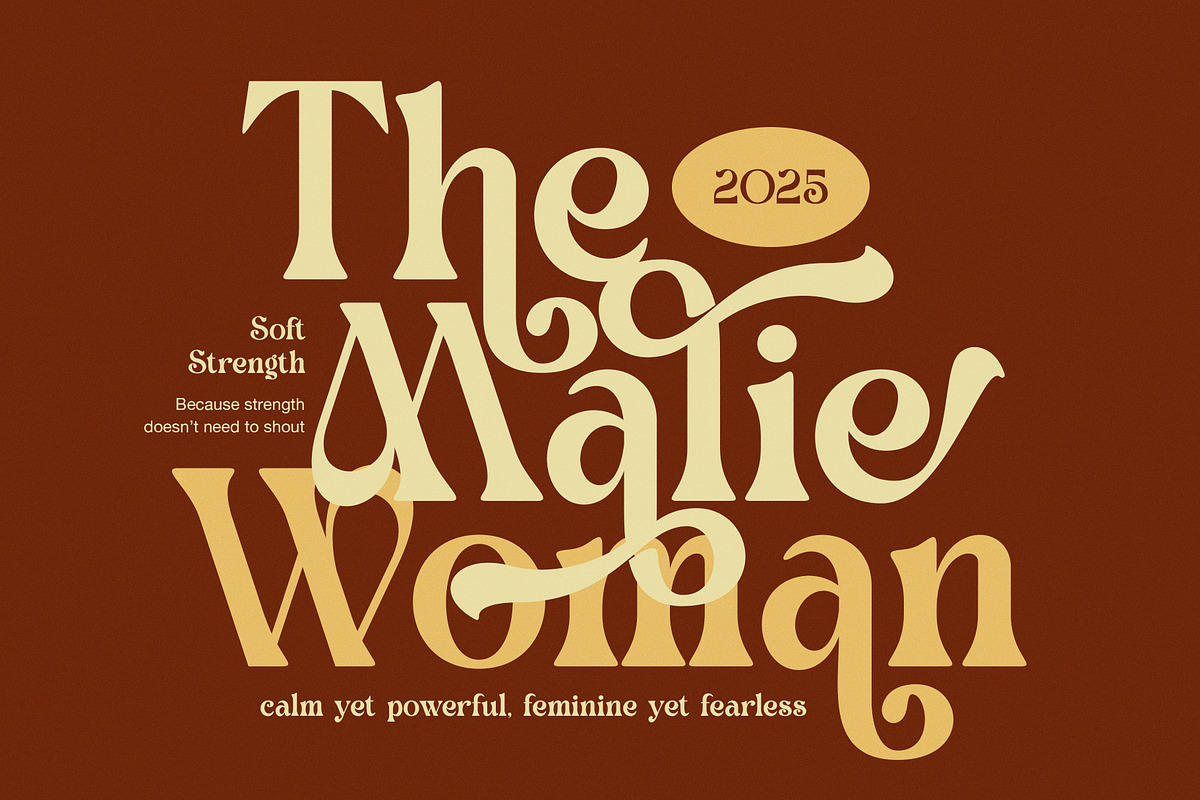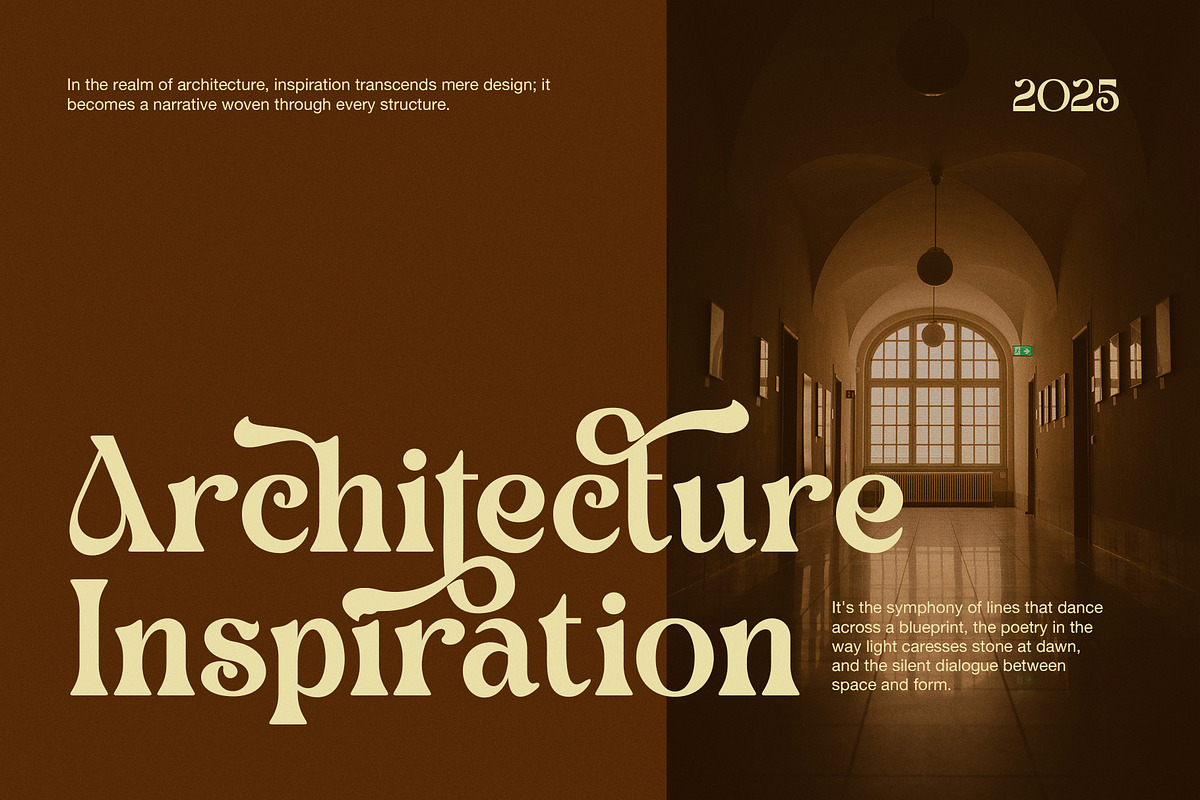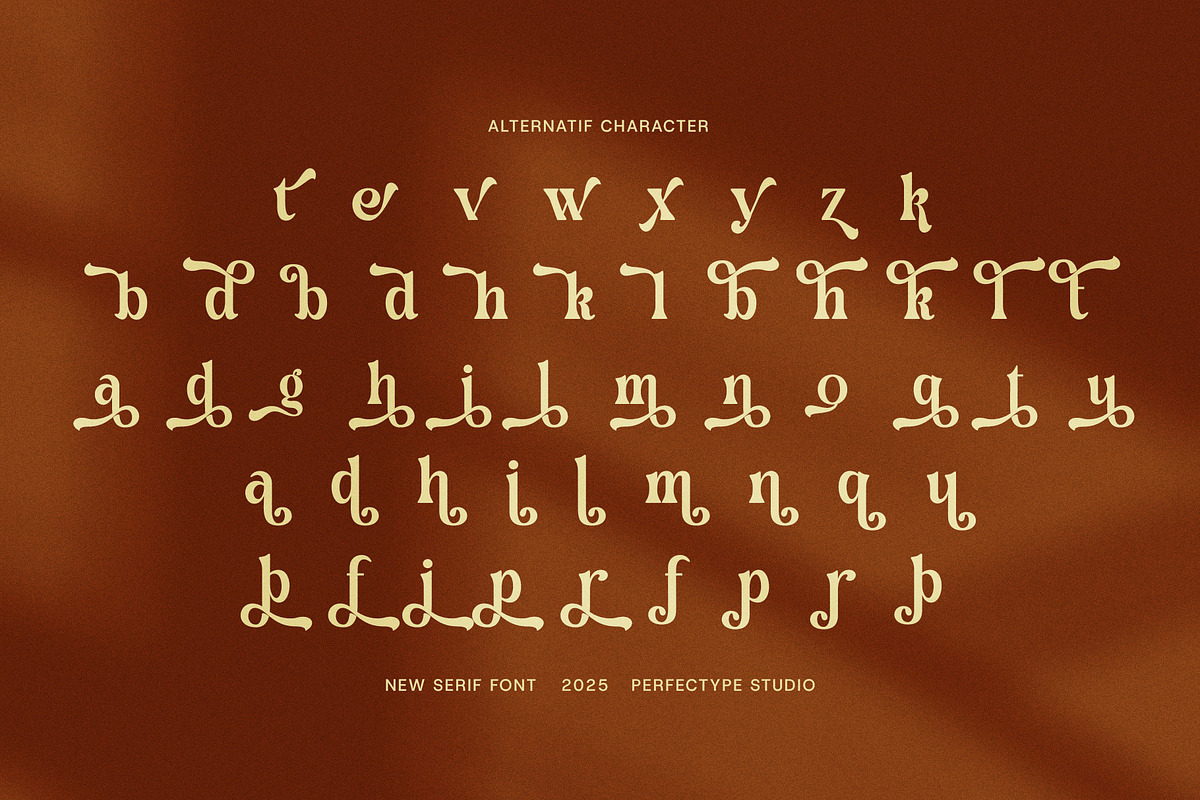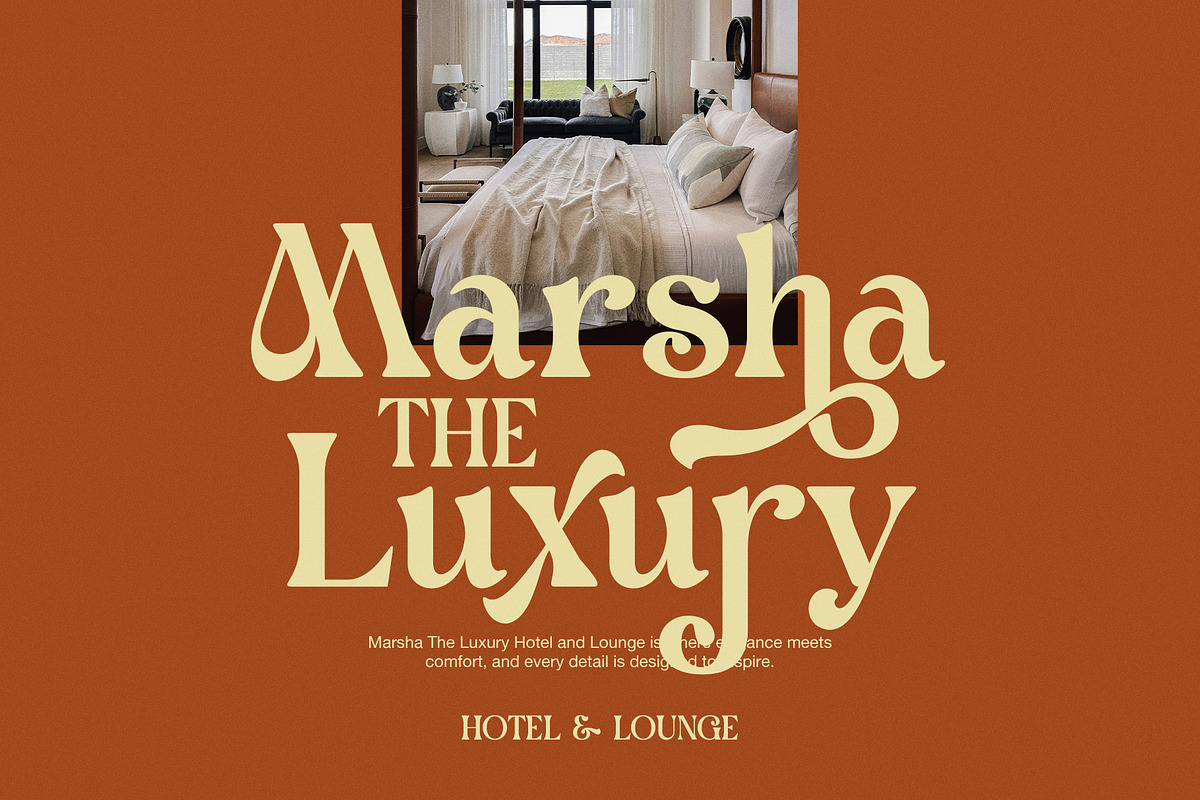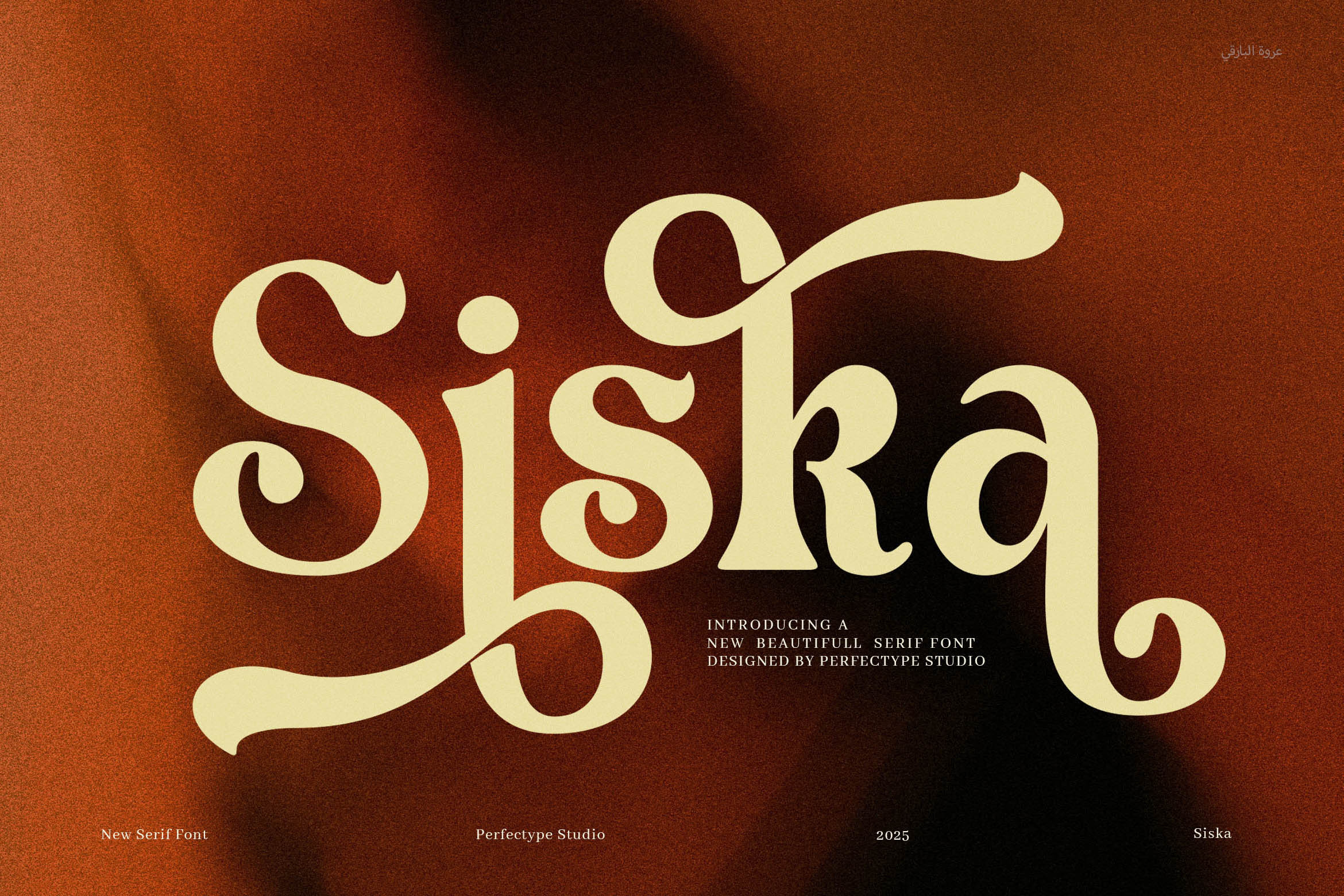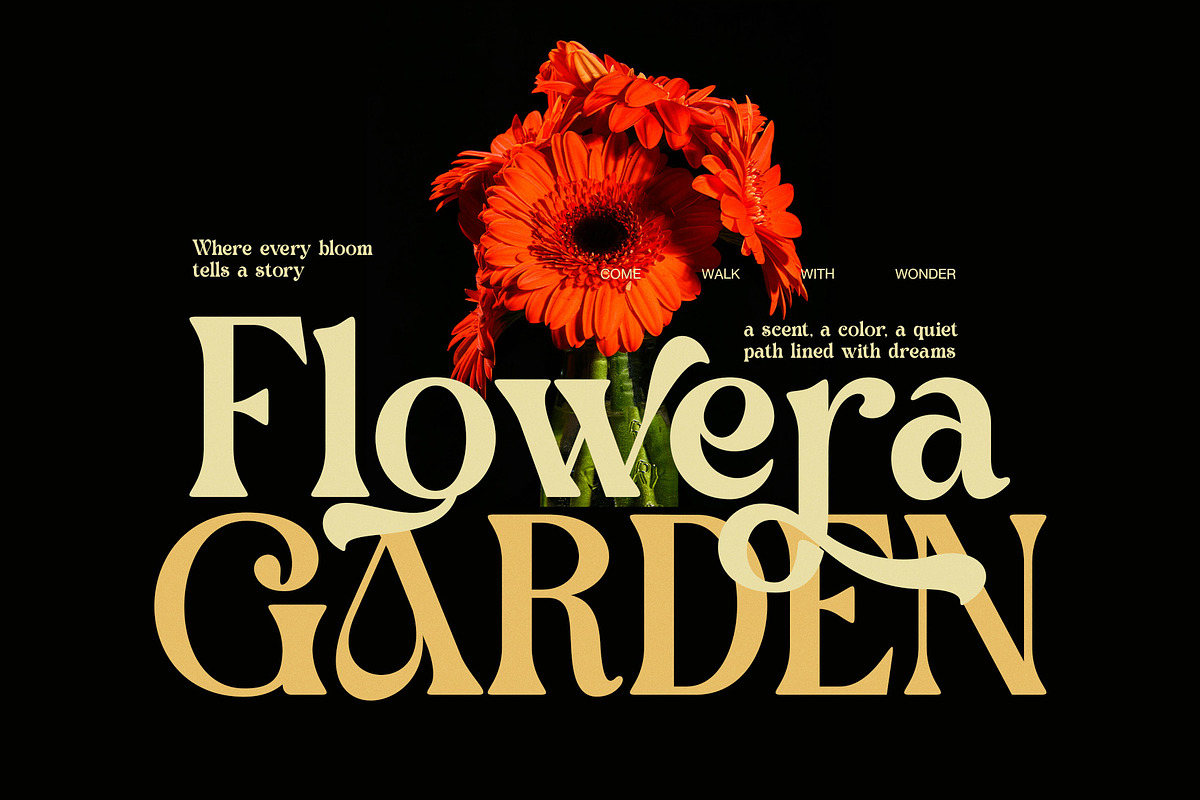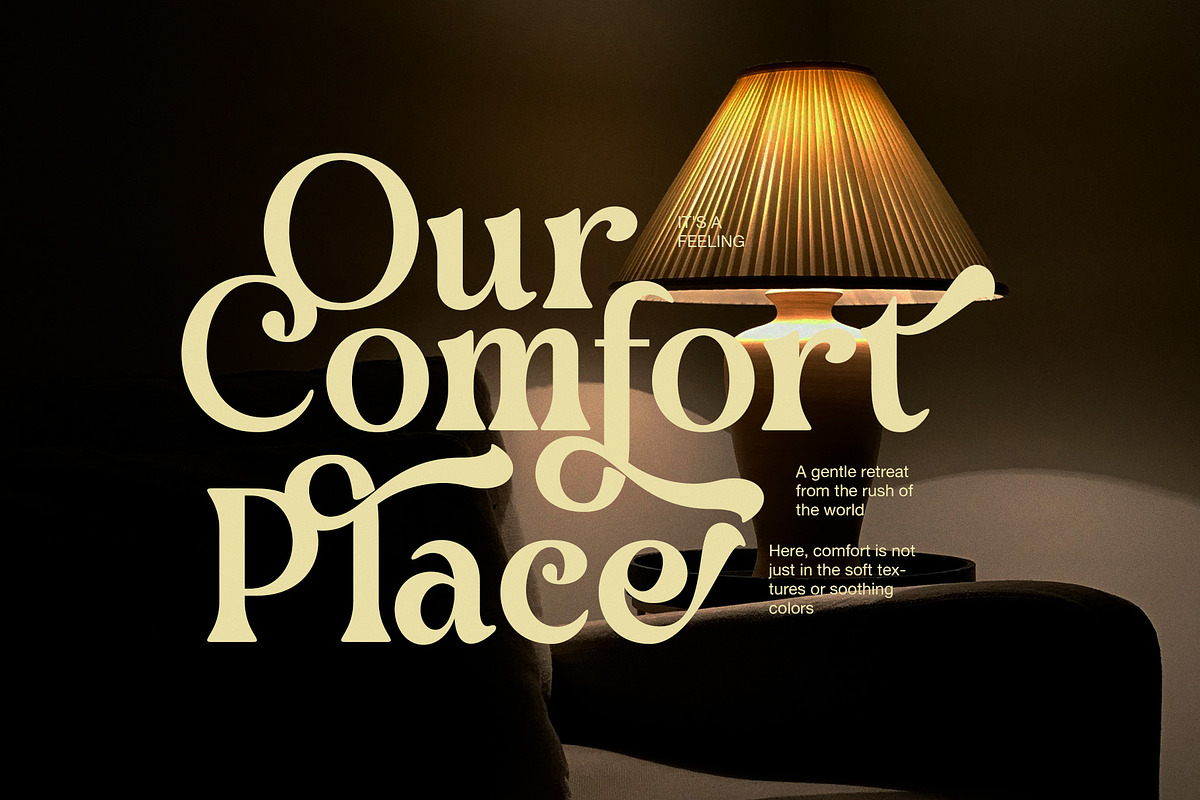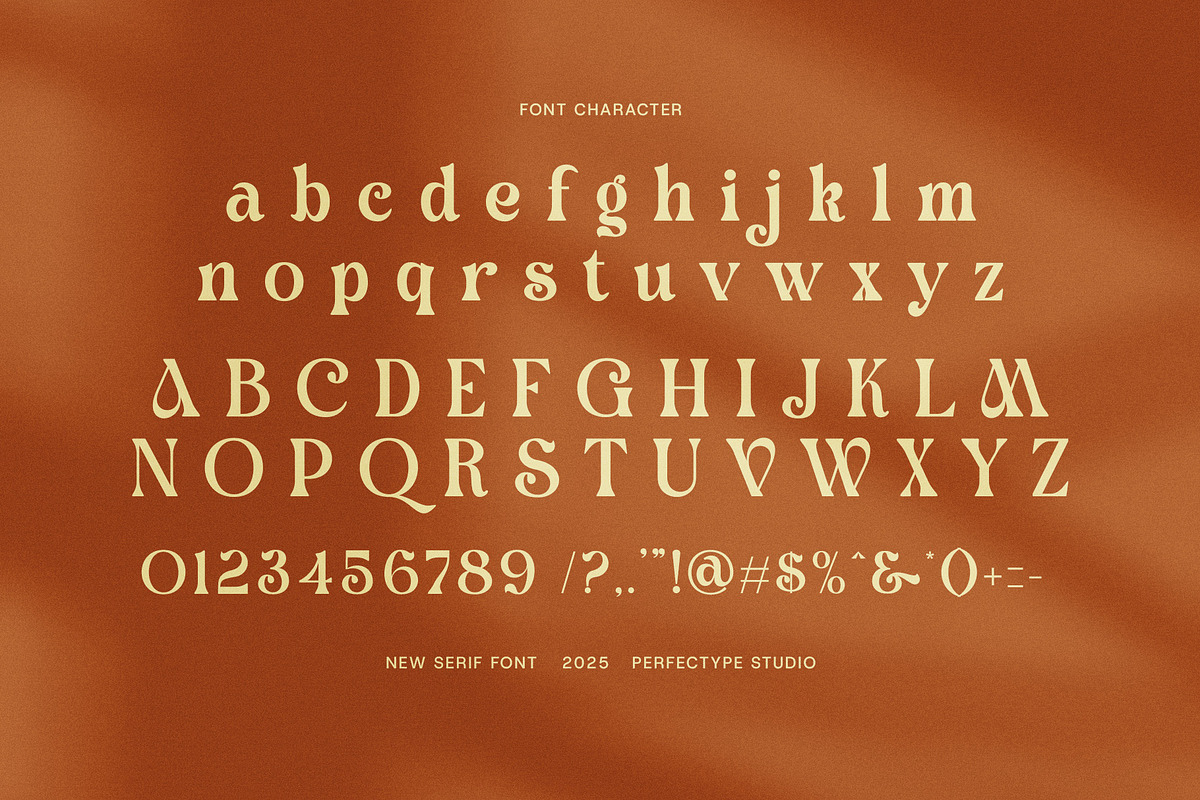
Siska Elegant Serif Font
Siska is a beautiful, elegant script font designed to bring a smooth, natural flow to your creative projects. Whether you are working on invitations, logos, branding, or social media graphics, Siska offers a stylish, feminine touch that elevates your design. Because it features delicate curves and clean strokes, it ensures your text feels warm and inviting while remaining easy to read.
This font includes carefully crafted ligatures and stylistic alternates. Therefore, it allows you to customize the look of your typography, making each design unique. Moreover, Siska works well in both large headlines and smaller body text, providing versatility for a wide range of uses.
One of the main reasons to choose Siska is its ability to blend modern style with timeless elegance. For instance, it is perfect for wedding invitations, fashion branding, beauty products, and lifestyle blogs. As a result, your work gains a professional yet personal feel that resonates with your audience.
Key highlights of the Siska font:
Elegant script with smooth, flowing lines
Includes ligatures and stylistic alternates
Versatile for branding, invitations, logos, and social media
Feminine, modern, and warm design style
Works well in both print and digital formats
By choosing Siska, your text will stand out gracefully with a natural, handcrafted feel. It adds charm and sophistication while keeping your message clear. Adding Siska to your font collection means you can create memorable designs that connect with viewers on a personal level.
In summary, Siska is the perfect script font for anyone looking to combine elegance with modern flair. Try it today to add a beautiful, feminine touch to your next project.